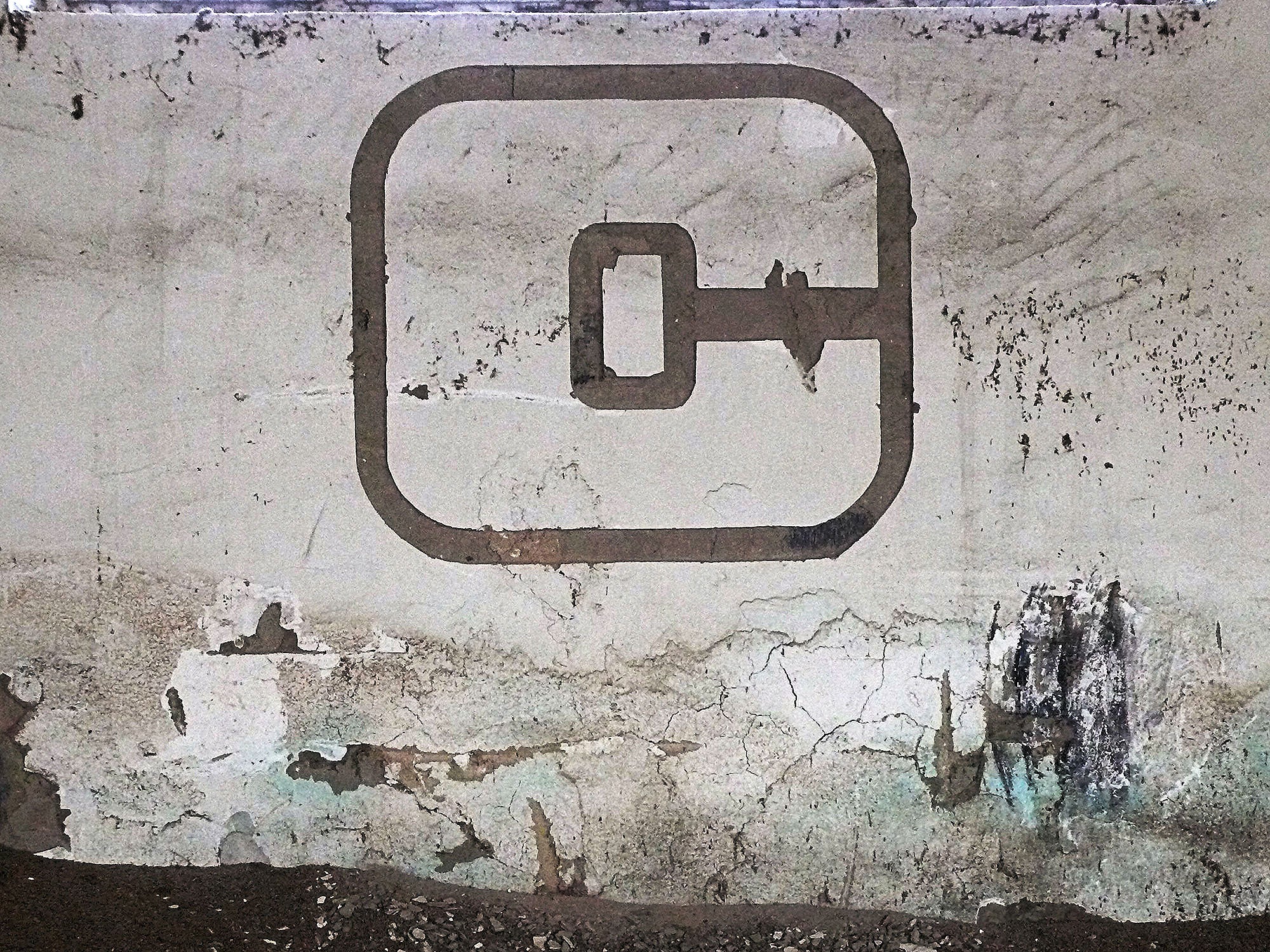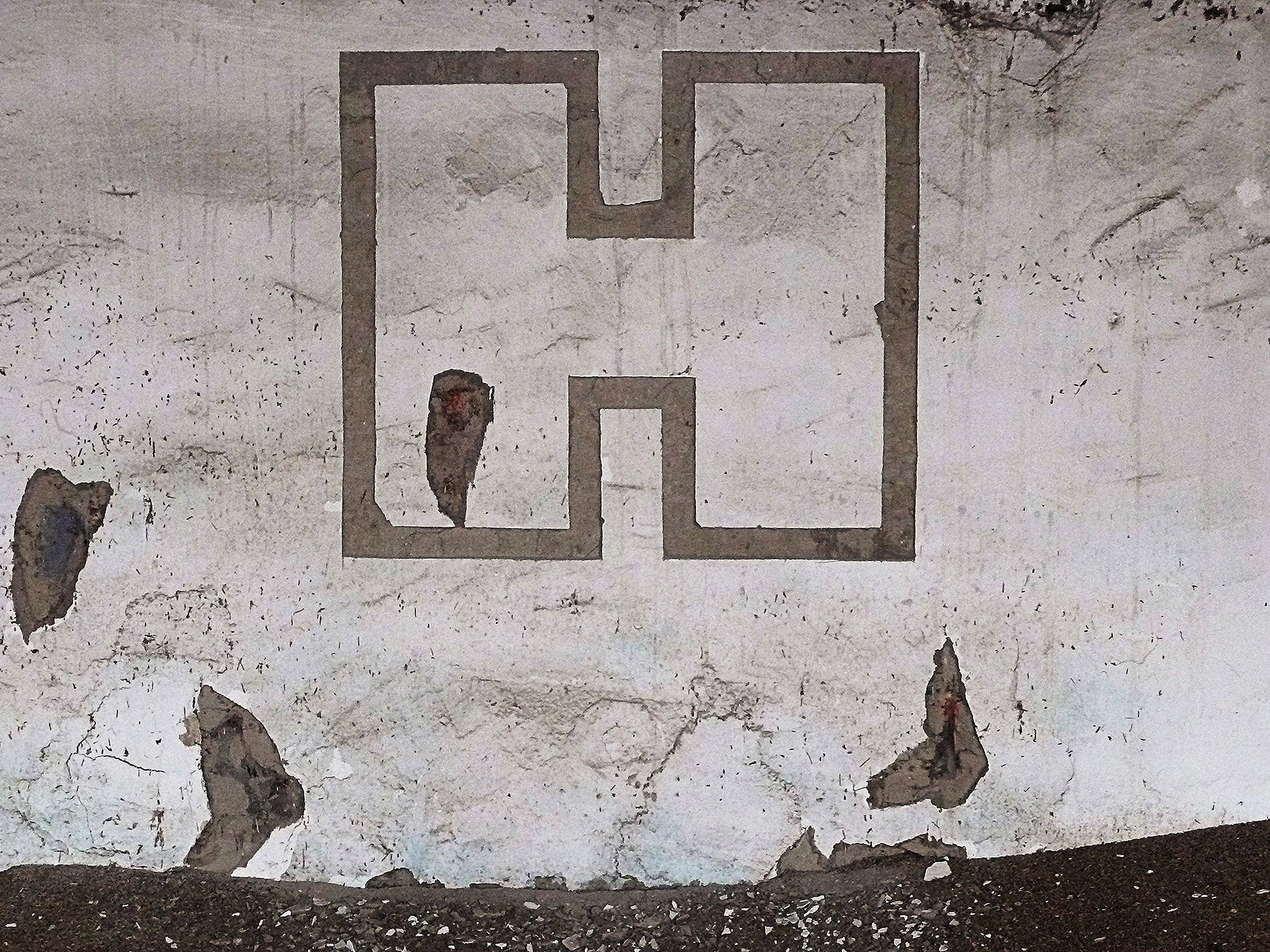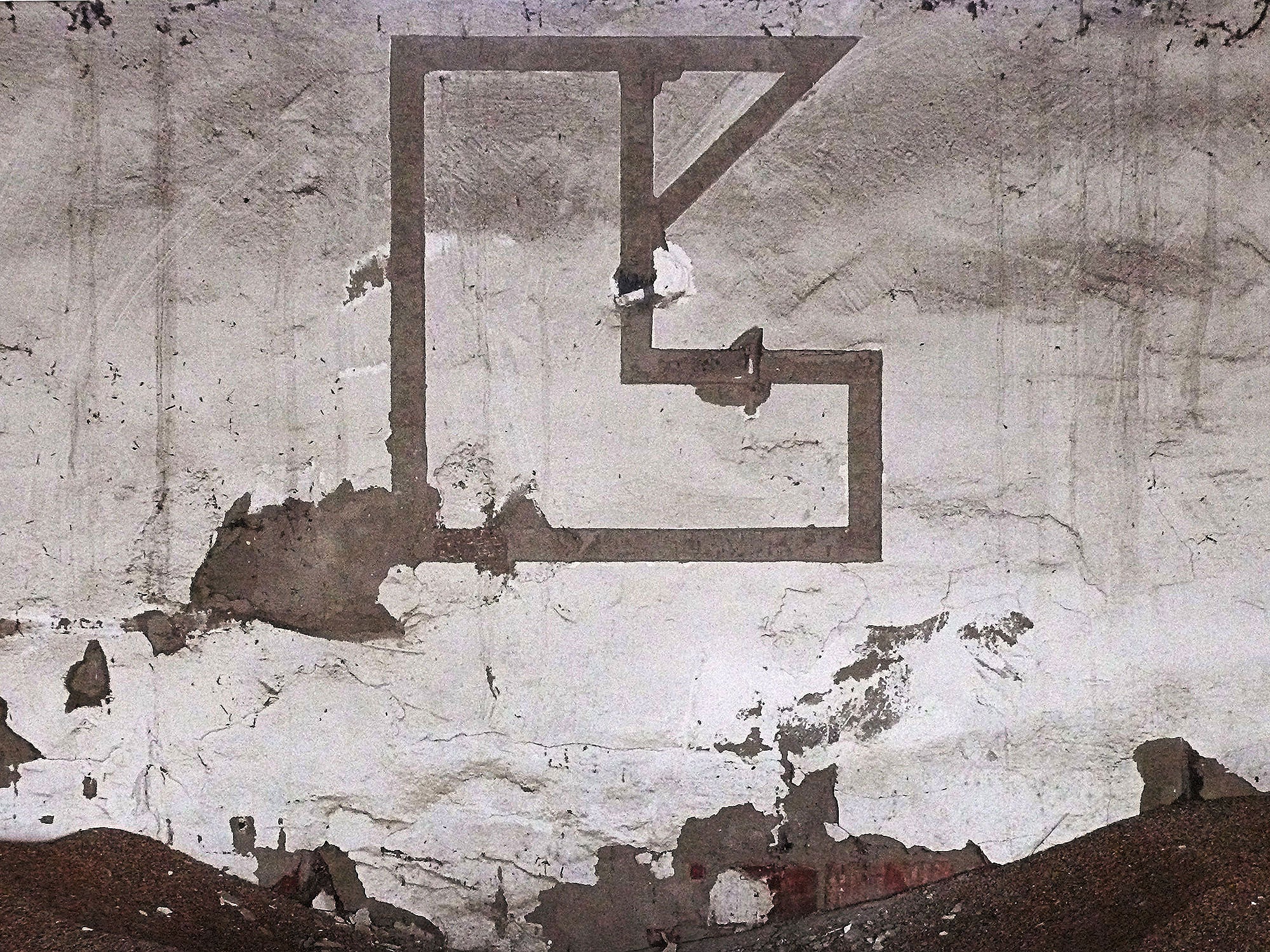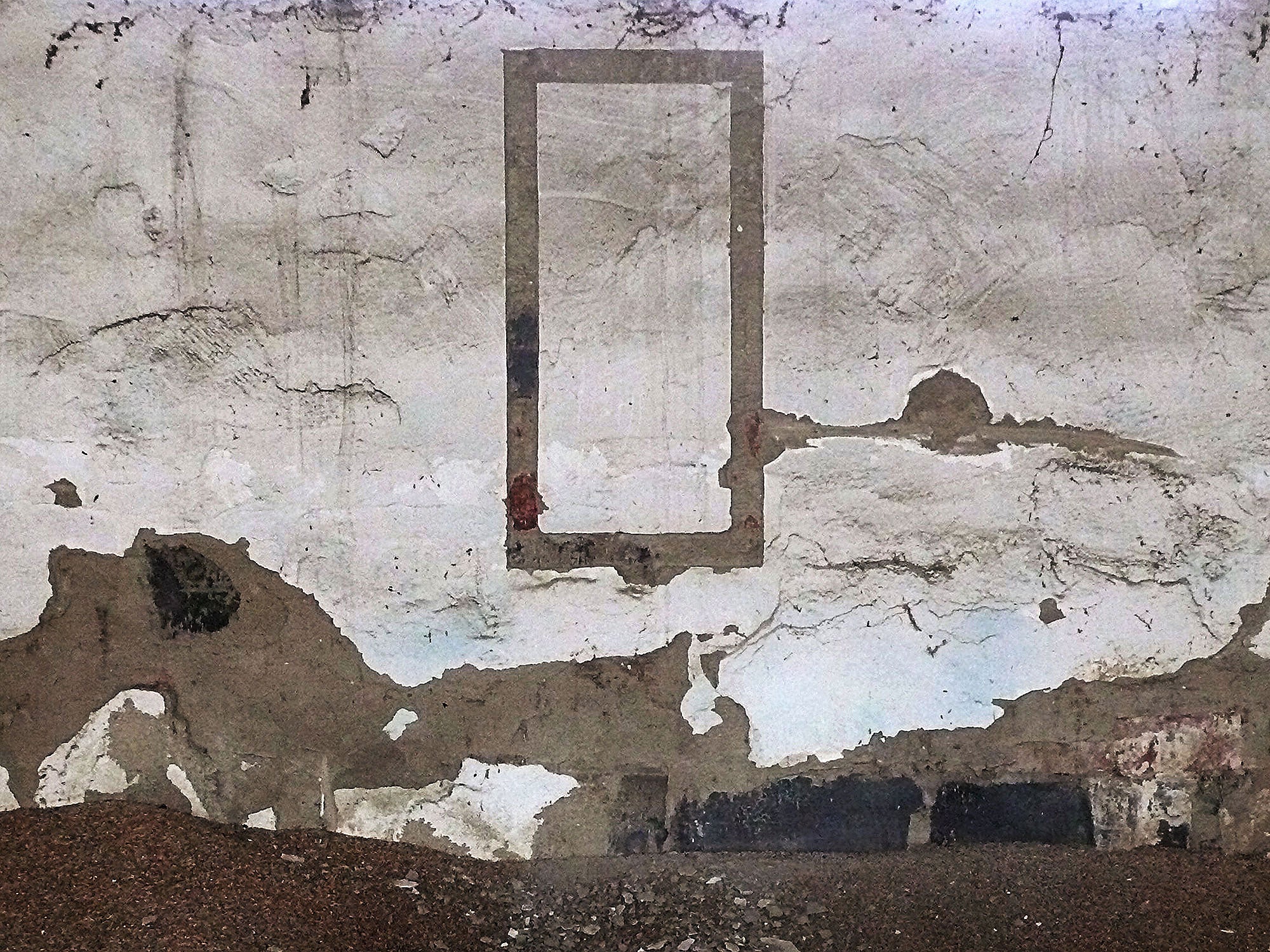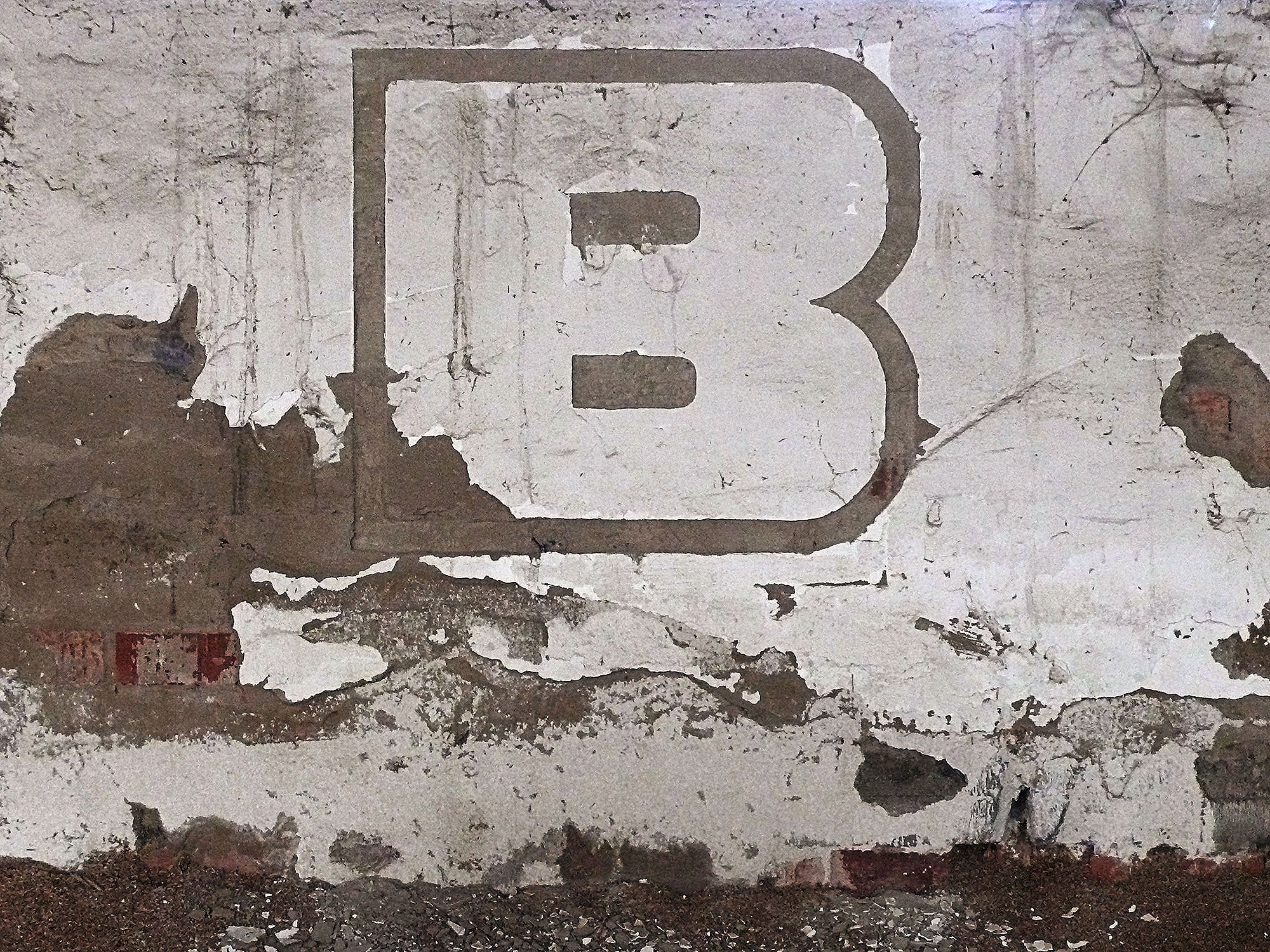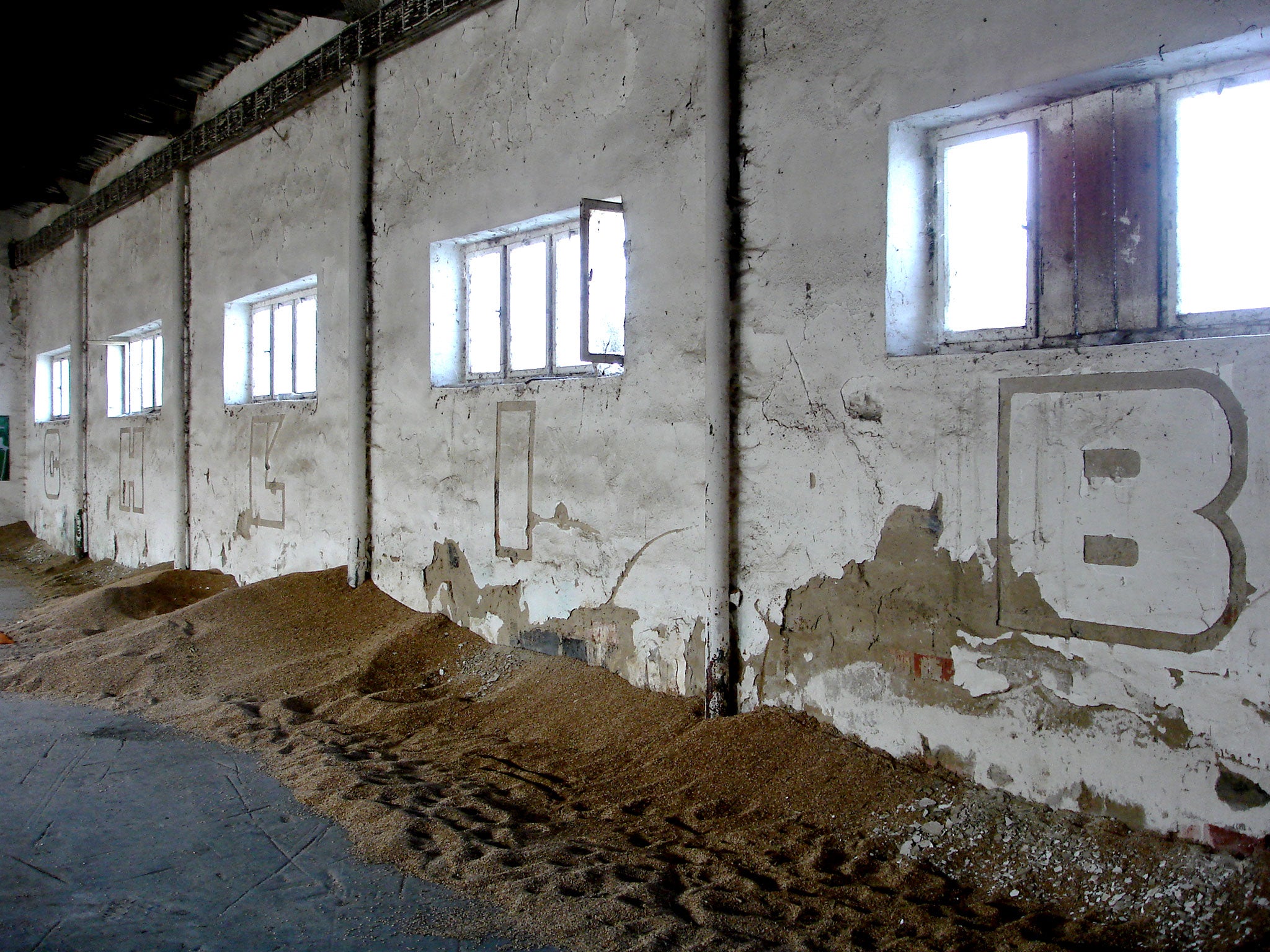
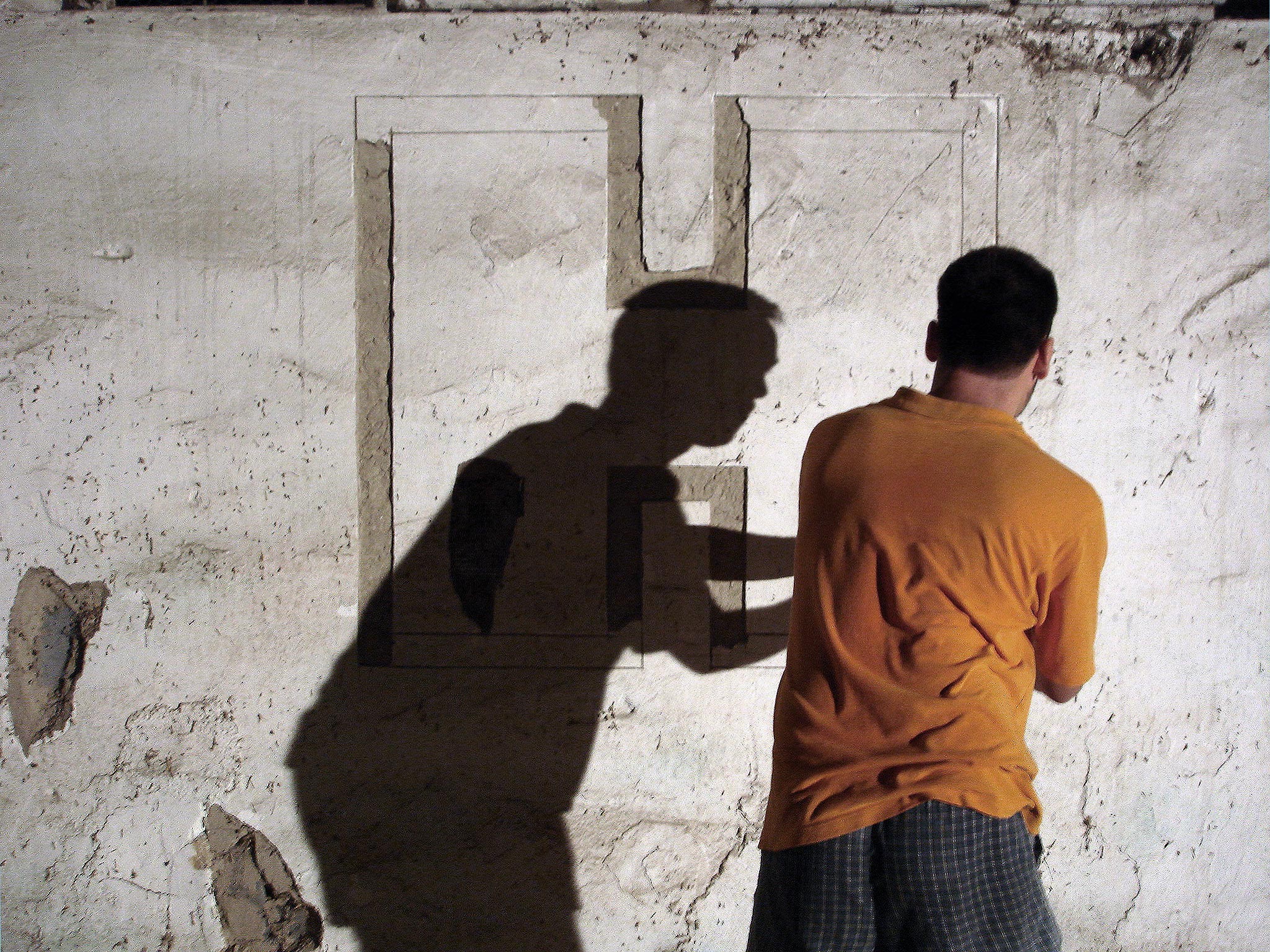
Chľib (in the Šariš regional dialect) means bread. The work was made during the artistic symposium Open space, held in the village of Košarovce (in the Šariš region), in a granary. The word chľib (bread) is a synonym for means of subsistence. We work for our daily bread and butter. The typeface used in the work, LEČO, is the result of my creative work and it also refers to means of support (lečo = bottled vegetable stew). The form of realisation by cutting the letters directly into a wall symbolises the hard work that is essential so that we can provide bread and butter for our families every day.
Otvorený priestor 2 / Open Space 2 • 24. — 27. 8. 2011 • Košarovce • typeface: LEČO 1988 • cut-out relief • © Samuel Čarnoký (2011)